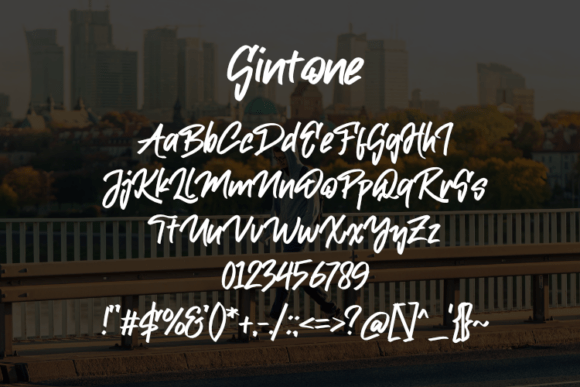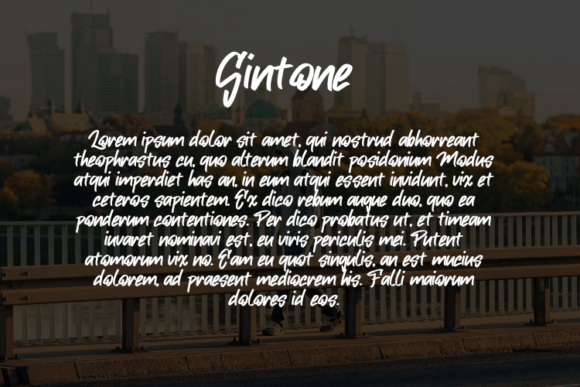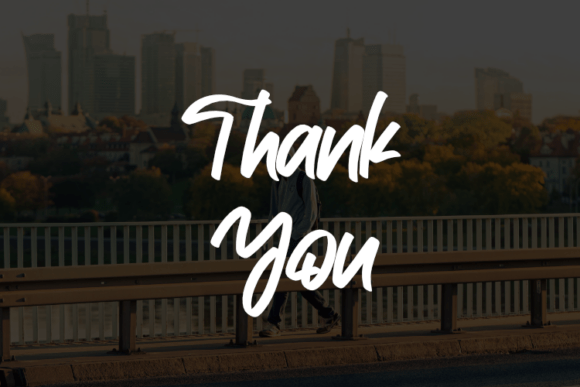
Introducing Gintone Font: Elevate Your Designs with Style and Versatility
Are you tired of using the same old fonts for your clothing and product designs? Do you want to add a touch of uniqueness and style to your creations? Look no further than Gintone Font, a contemporary and versatile font that is perfect for designers and crafters alike. In this article, we’ll dive into the world of Gintone Font and explore its features, benefits, and uses.
What is Gintone Font?
Gintone Font is a stylish and modern font that is designed to bring life to your designs. With its fluid and contemporary design, Gintone Font is perfect for creating eye-catching t-shirts, accessories, and a range of other products. The font is delivered in an easy-to-execute OTF file format, making it compatible with all design programs.
Key Features of Gintone Font
- Versatility: Gintone Font is designed to be versatile, making it perfect for a range of design applications, from clothing and accessories to packaging and branding.
- Unique and Stylish: Gintone Font has a unique and stylish design that will add a touch of elegance to your creations.
So, why should you choose Gintone Font for your designs? Here are just a few benefits of using this amazing font:
- Stand Out from the Crowd: With Gintone Font, you can create unique and eye-catching designs that will set you apart from the competition.
- Elevate Your Brand: Gintone Font is perfect for branding and packaging, allowing you to create a cohesive and professional look for your business.
Uses of Gintone Font
Gintone Font is perfect for a range of design applications, including:
- T-Shirts and Apparel: Add a touch of style and elegance to your t-shirts and apparel with Gintone Font.
- Accessories: Use Gintone Font to create eye-catching accessories, such as tote bags, hats, and phone cases.
- Packaging: Elevate your packaging with Gintone Font, creating a professional and cohesive look for your products.
- Branding: Use Gintone Font to create a unique and memorable brand identity.
Here are a few tips for getting the most out of Gintone Font:
- Experiment with Different Sizes: Gintone Font looks great in a range of sizes, so don’t be afraid to experiment and find the perfect size for your design.
- Pair with Other Fonts: Gintone Font pairs well with a range of other fonts, so try combining it with other fonts to create a unique look.
- Use in Different Colors: Gintone Font looks great in a range of colors, so don’t be afraid to experiment and find the perfect color for your design.
In conclusion, Gintone Font is a versatile and stylish font that is perfect for designers and crafters alike. With its fluid and contemporary design, compatibility with all design programs, and easy-to-use OTF file format, Gintone Font is the perfect choice for anyone looking to elevate their designs. Whether you’re creating t-shirts, accessories, packaging, or branding, Gintone Font is sure to bring a touch of elegance and uniqueness to your creations.